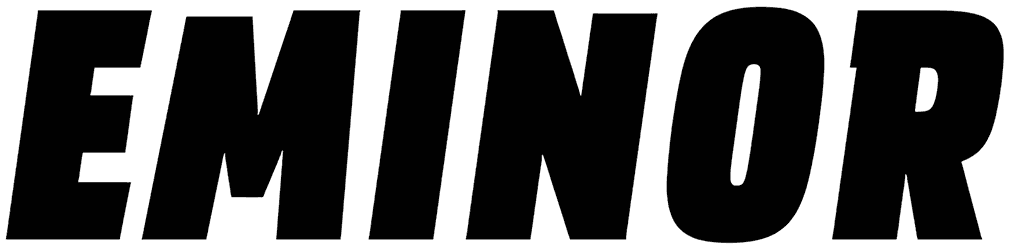
Eminor Font
Eminor is designed in a precise and powerful way so that you can mix and match the styles of your designs. This thick font is full of ways to create incredible designs without lowercase letters and is a great way to make all your work, like posters, ads, and social media posts, look beautiful and powerful.
So, if you need a versatile font in your toolbox, add Eminor to your collection as your right-hand friend.